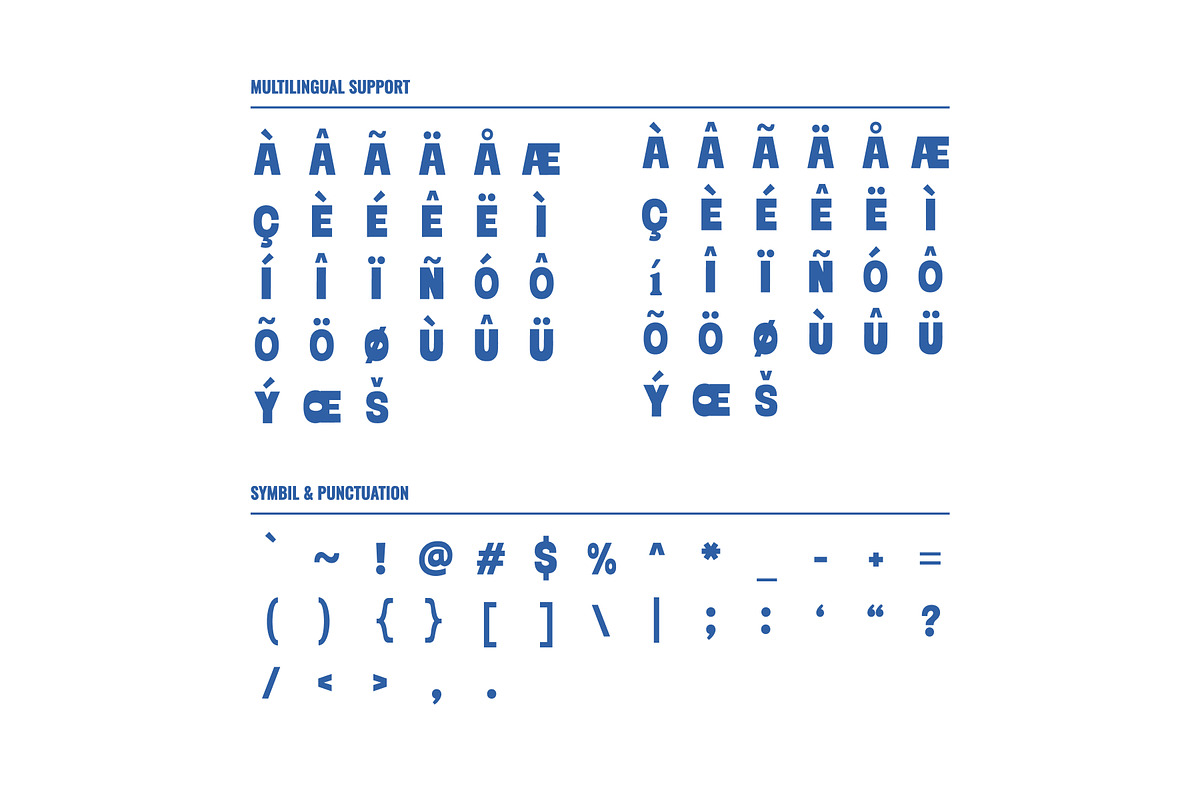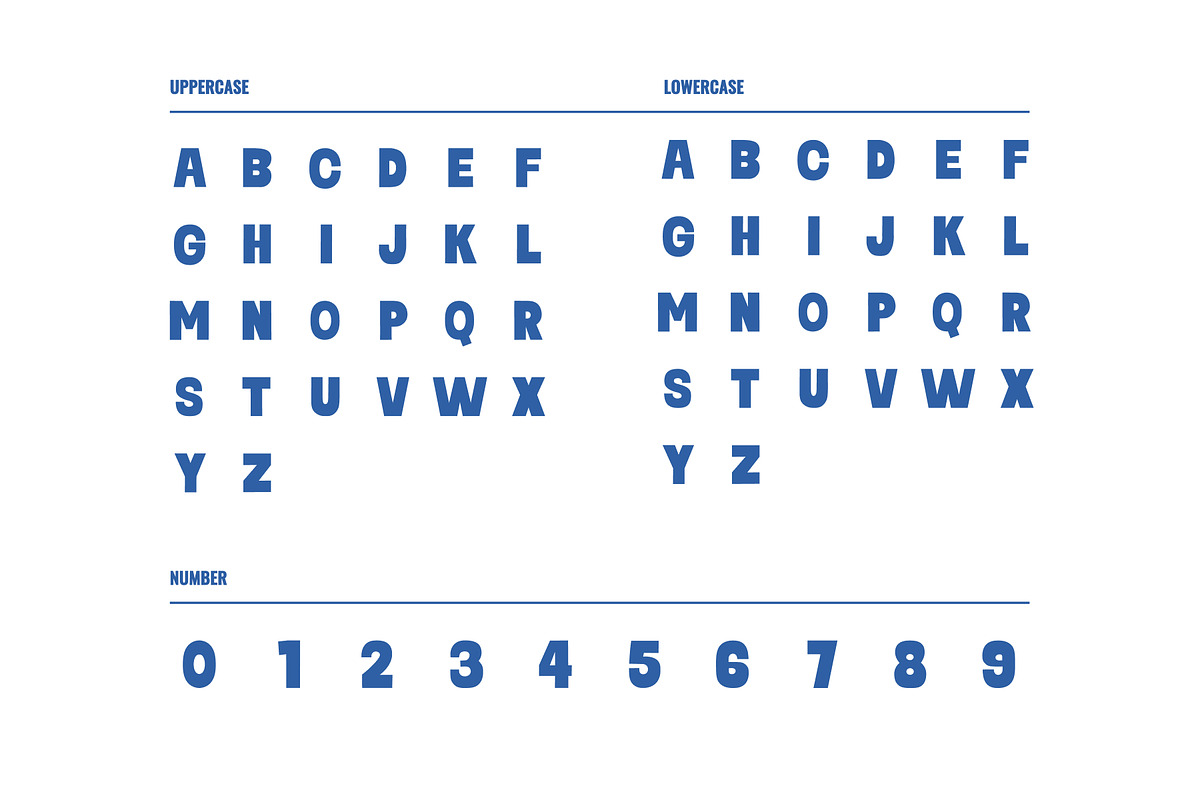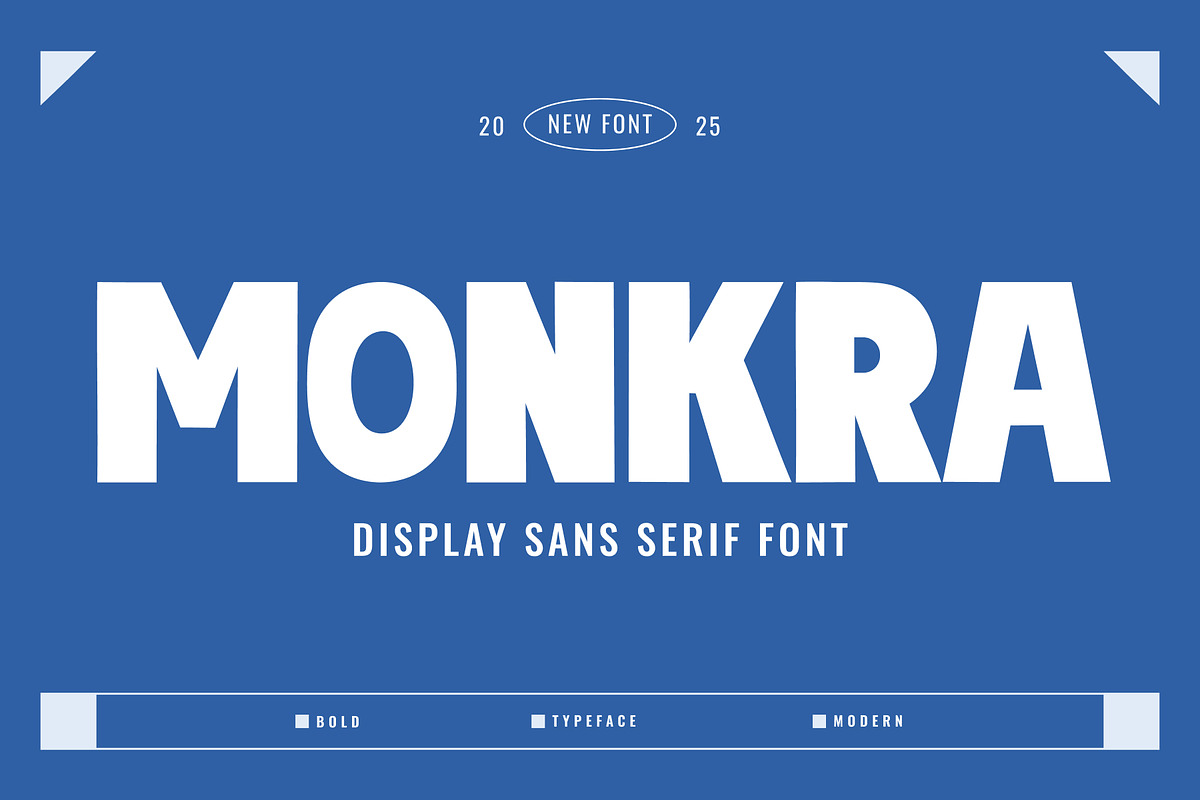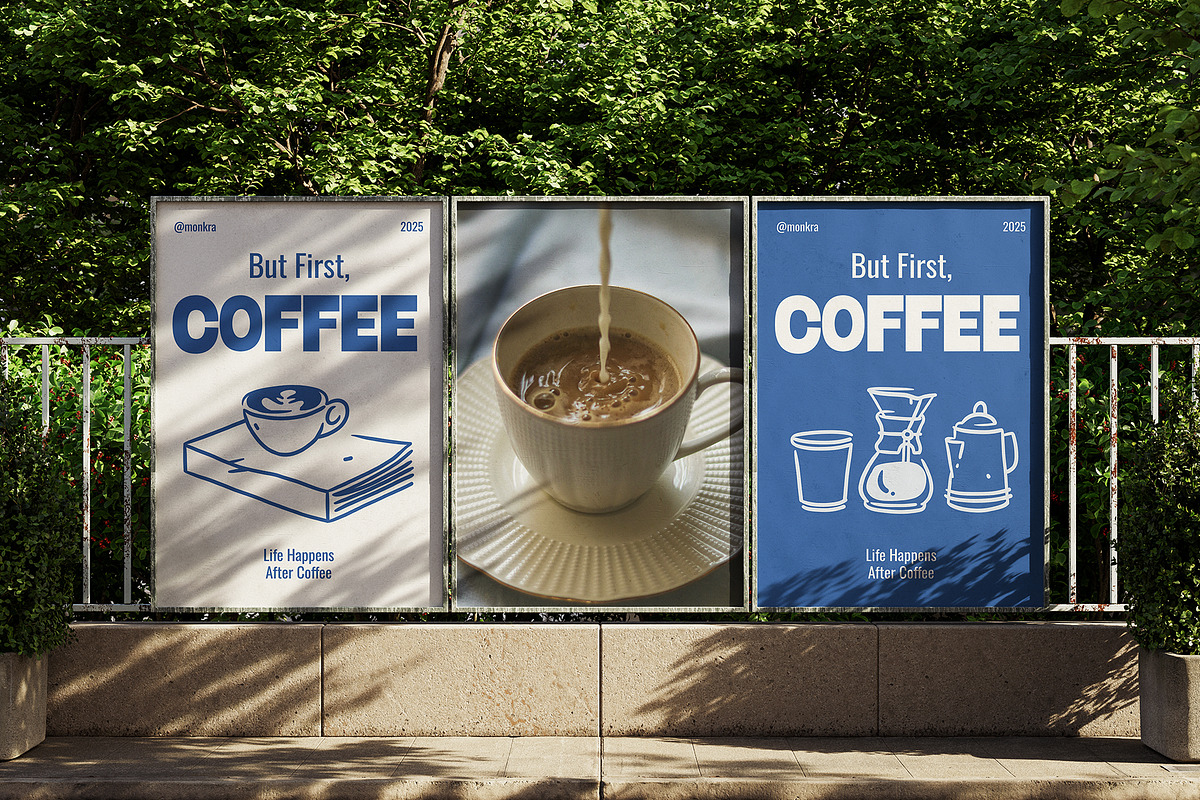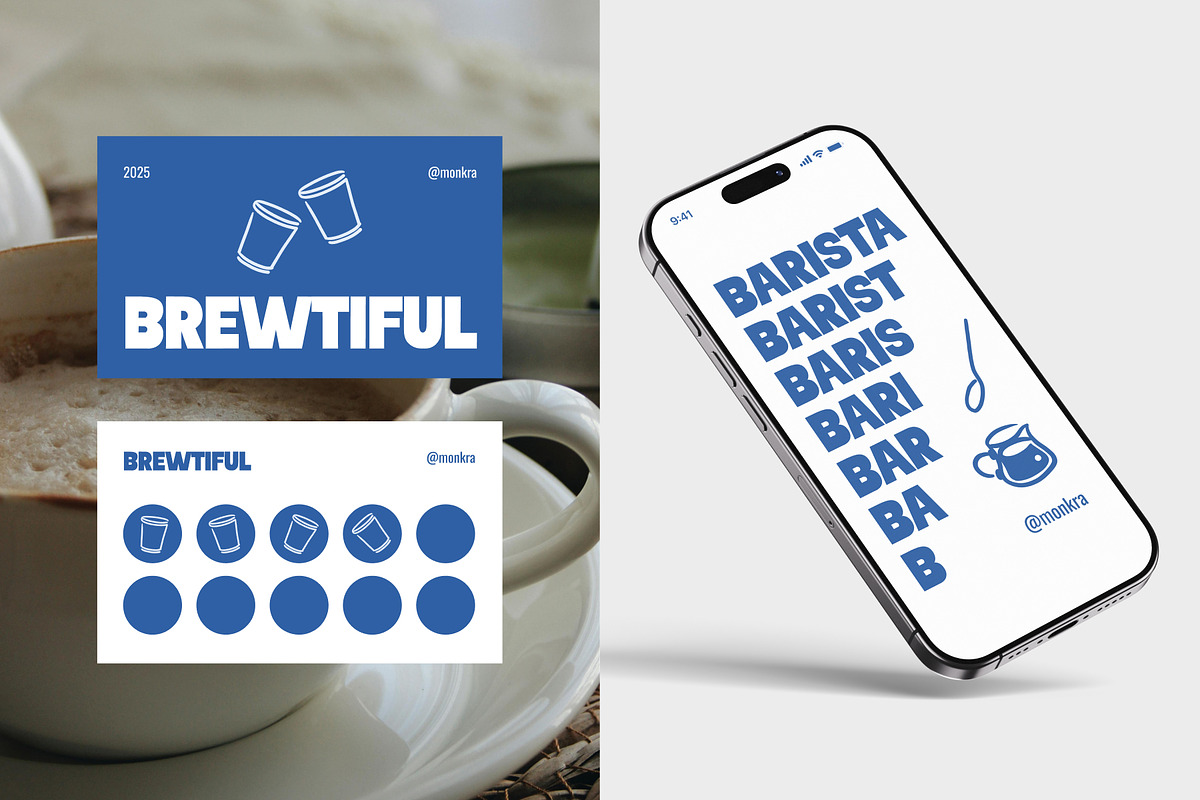
Monkra
Monkra is the ultimate bold display font to make your brand instantly go viral. Perfect for striking headlines, modern logos, and high-impact social media. Get the modern, clean, and unique style designers love for technology, contemporary, and futuristic projects. Boost your sales and stand out!